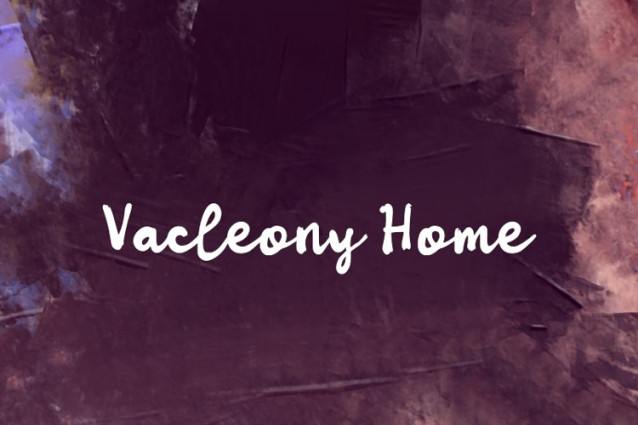
Vacleony Home Font
Vacleony Home Font is a simple and friendly handwritten font. Its natural and unique style makes it incredibly fitting to a large pool of designs. The only limit is your imagination!